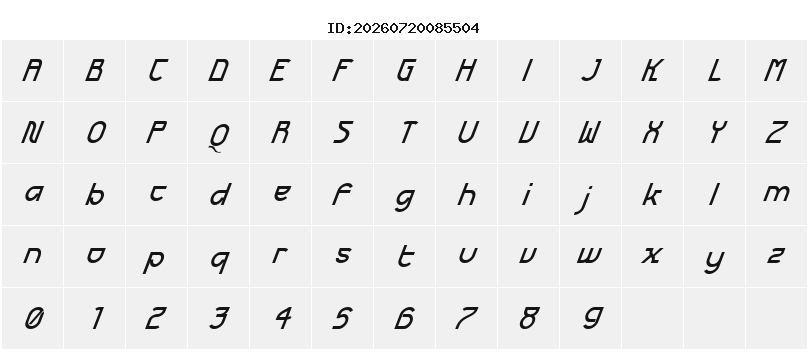
Futurex Preview
• Font Name: Futurex
• Font Style: BoldOblique
• Font ID: Macromedia Fontographer 4.1 Futurex BoldOblique
• Full Font Name: Futurex BoldOblique
• Version: Macromedia Fontographer 4.1 6/19/00
• PostScript Name: FuturexBoldOblique
• Character Count: 231
About Futurex.ttf
Futurex.ttf is a modern, elegant sans-serif font designed for ultimate readability and visual harmony. Perfect for branding, headlines, web design, and print materials.